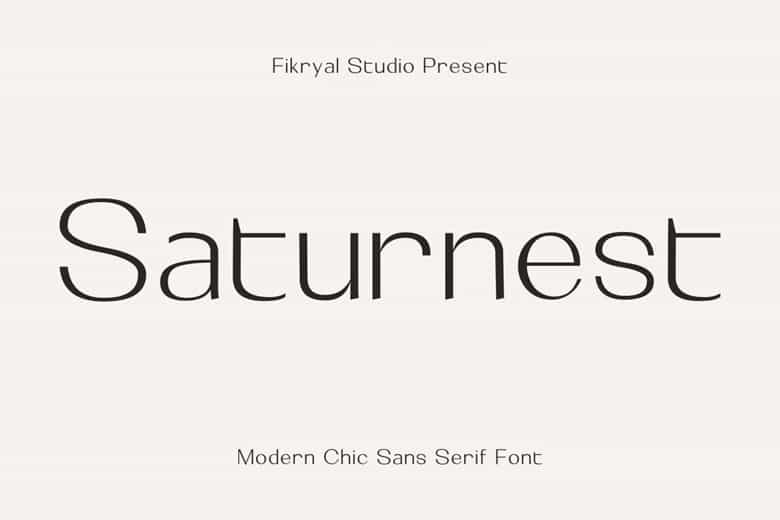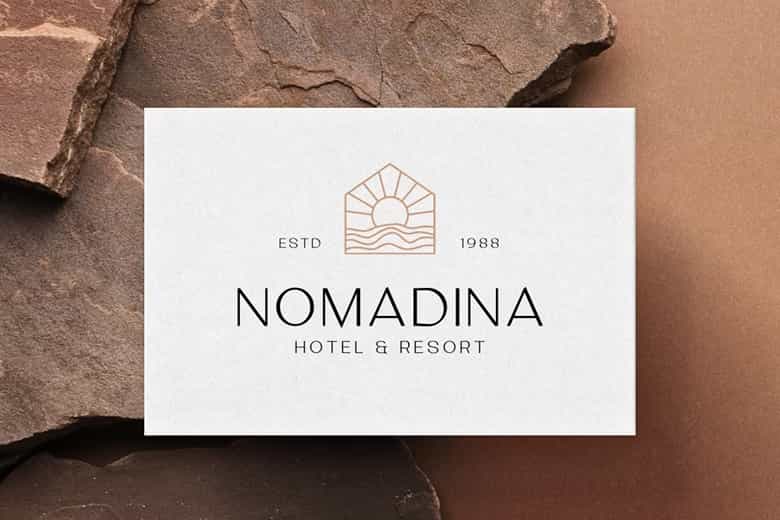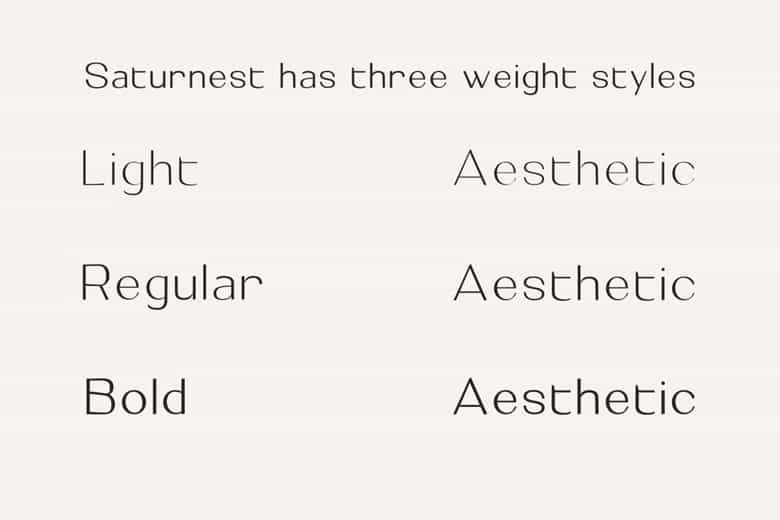
Saturnest is a modern chic sans serif font that would suit any project and gives a modern twist to any design. Whatever you are developing, from the packaging of a product to the branding materials or website design, Saturnest provides accuracy and elegance. This font is superb for branding and will assist companies in creating a vibrant and modern brand image.